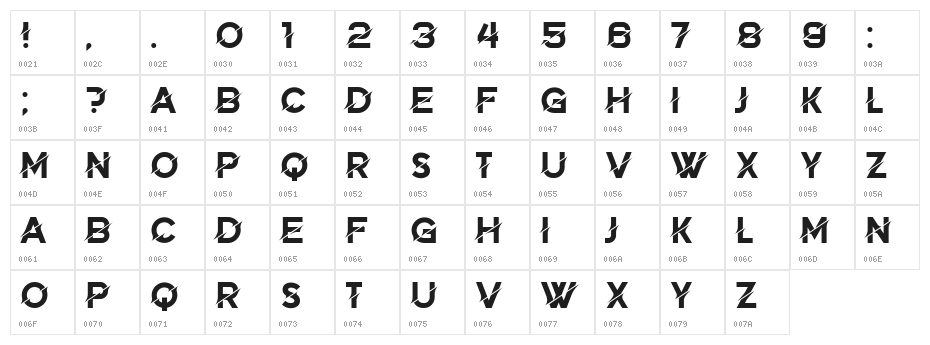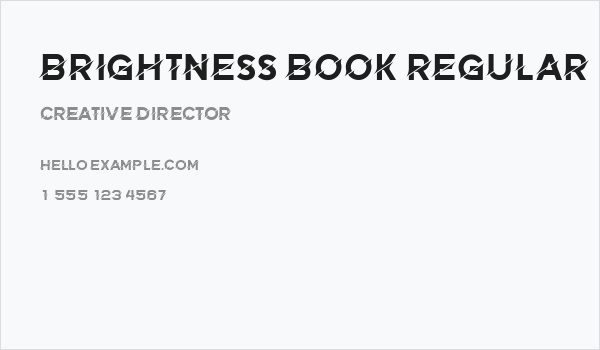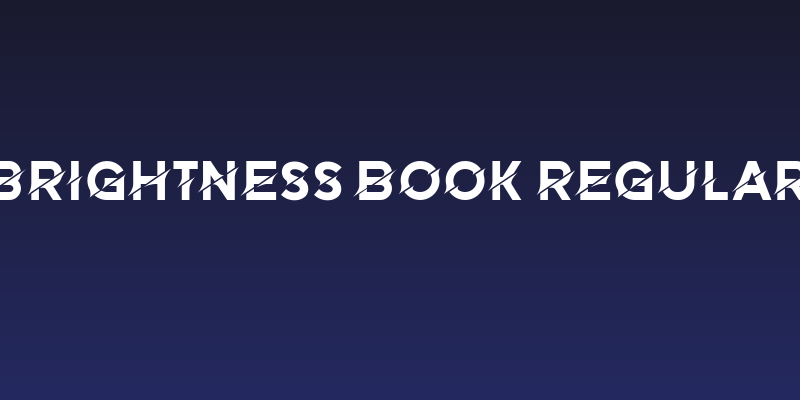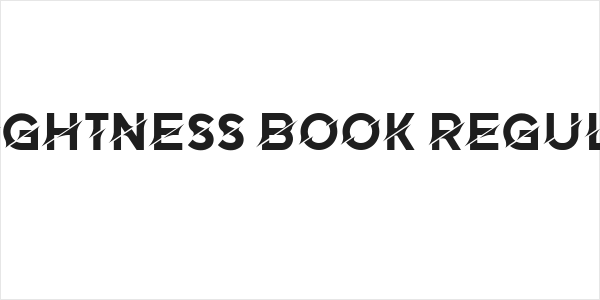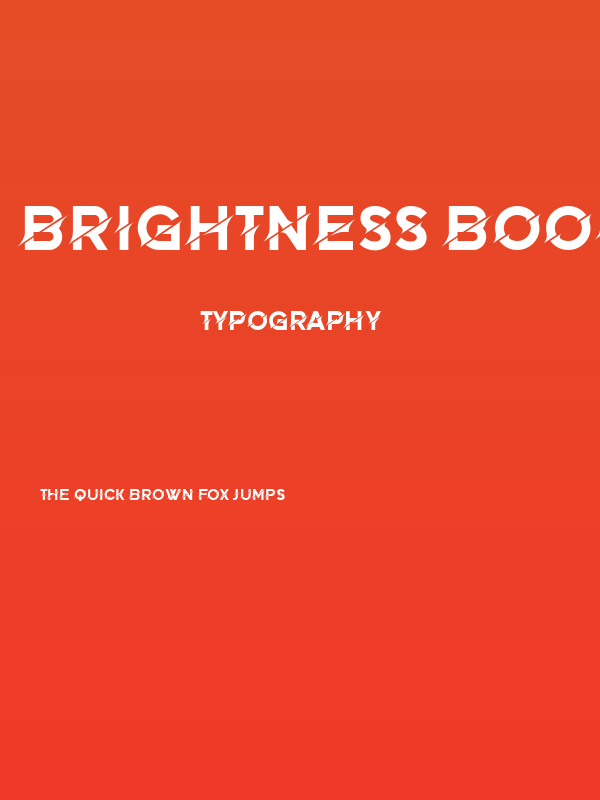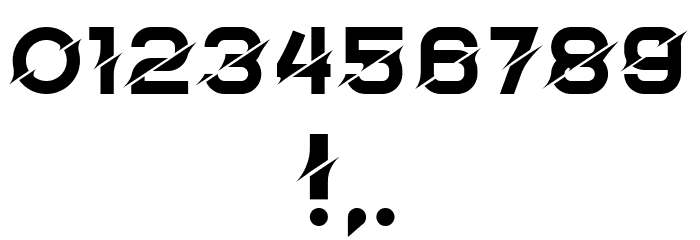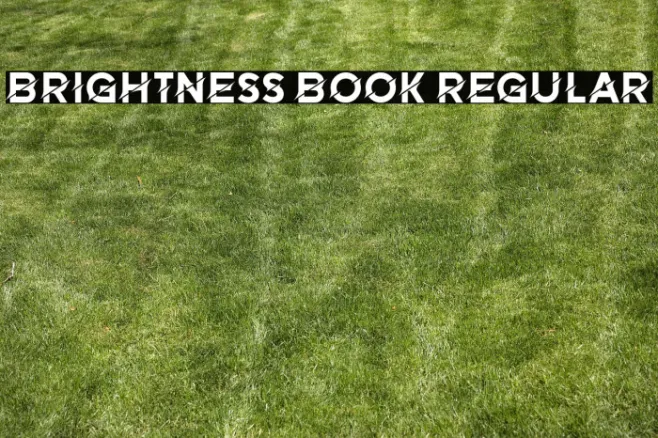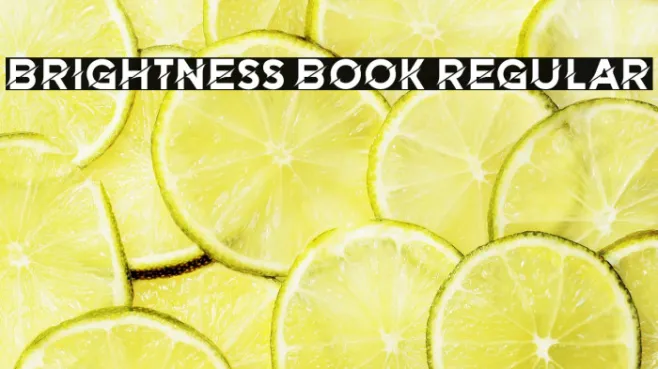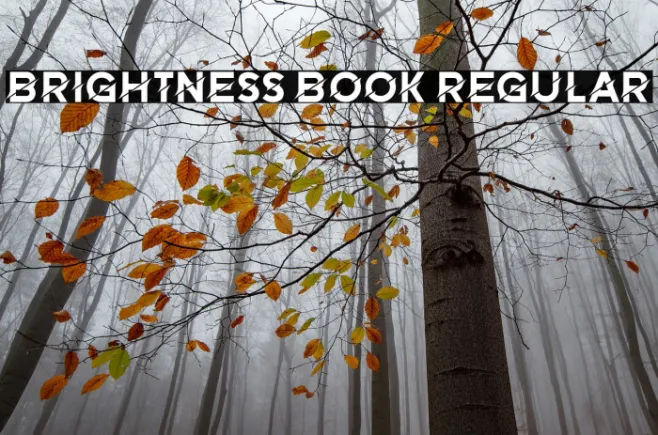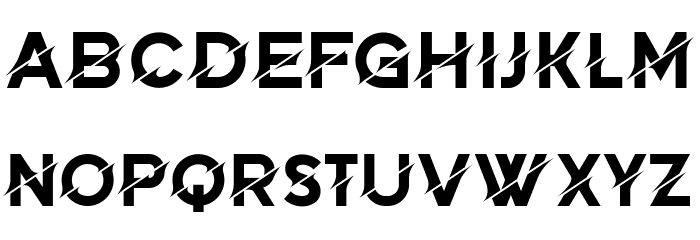
Brightness Book Regular Font
Brightness Book Regular Description
This font features a bold and dynamic style with a modern twist. Each character is designed with sharp, angular cuts that create a sense of movement and energy. The uppercase and lowercase letters maintain a consistent geometric form, while the numbers and special characters follow the same design principles, ensuring uniformity across the typeface. The font's unique aesthetic is achieved through the interplay of solid black areas and negative space, giving it a striking and memorable appearance. Its boldness and distinctiveness make it suitable for projects that require a strong visual impact.
| Proposed Projects | Ideal for branding, posters, headlines, and any design project that requires a bold statement. |